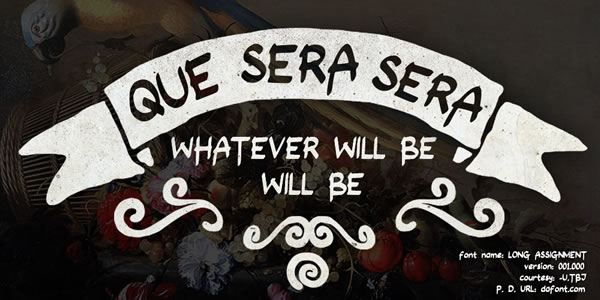
Long Assignment Font
About Long Assignment Font
This is a beautiful typeface.
It can be used for various purposes such as mugs, headings, logos, invitations, newspapers, and much more!